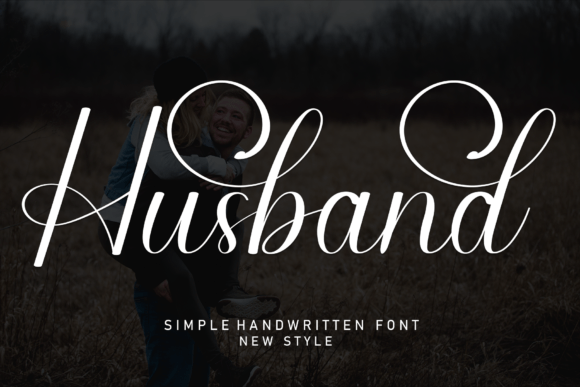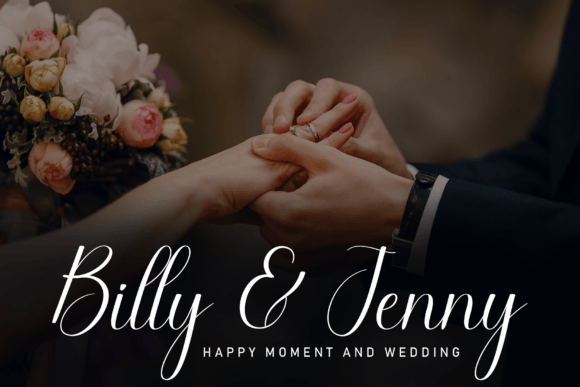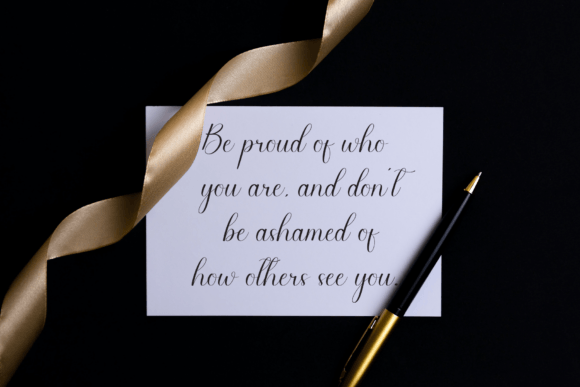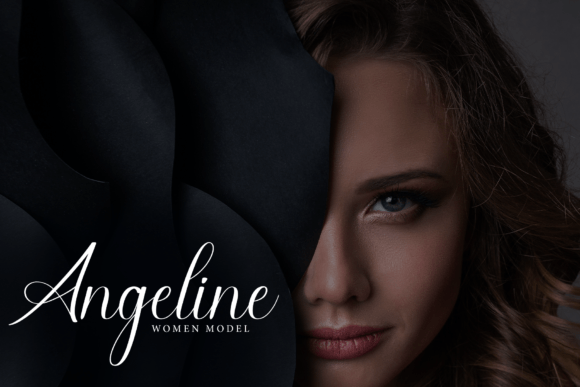
Husband Font: Elegant Calligraphy Font for Wedding & Branding Design
About the Husband Font
Experience the unique personality of Husband Font, a font designed for impact. Husband is a sweet and friendly handwritten font. Fresh and casual, this font is ideal for writing wedding invitations, cards, or any other design that might need a lovely touch.
Husband’s friendly, casual style makes it perfect for branding projects needing a warm, approachable feel, particularly for businesses in the food, wedding, or lifestyle sectors. It also works well on short-form content like social media posts, greeting cards, and packaging where its handwritten charm is emphasized. However, avoid using Husband for large blocks of text or UI elements; its informal nature and inconsistent letterforms hinder readability in extended use.
Pairing Husband with a clean sans-serif like Lato or Open Sans provides a strong contrast, allowing the handwritten script to stand out while maintaining readability. For a more elegant look, consider pairing it with a classic serif like Garamond or a delicate script font like Great Vibes, but ensure sufficient size and spacing for legibility.
Husband’s overall personality is best described as friendly and approachable, conveying a sense of warmth and approachability rather than formality or sophistication. Its casual nature makes it unsuitable for corporate settings or projects demanding a high degree of professionalism.